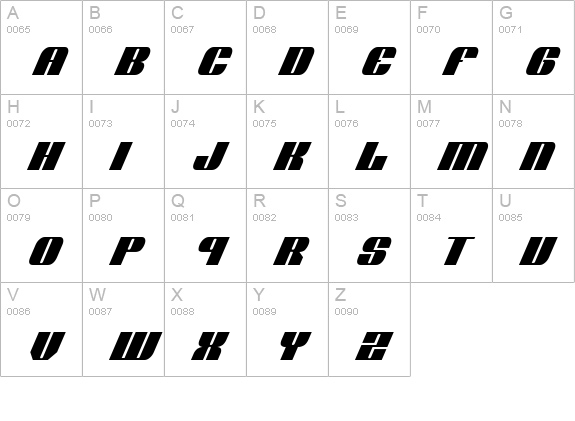
Nolo Contendre CondItal font is a sleek and modern typeface that exudes elegance and sophistication. Its condensed italic design provides a unique and stylish appearance, making it perfect for a variety of design projects. The sharp angles and clean lines of this font give it a contemporary feel that is sure to captivate your audience. One of the best features of Nolo Contendre CondItal font is that it is available for free download at FontsMarket.com. This means you can easily access this high-quality font without any cost, making it a fantastic choice for both personal and commercial use. Whether you're designing a logo, creating a website, or working on a branding project, Nolo Contendre CondItal font is sure to elevate your design with its modern and sophisticated aesthetic. Download this font today and unleash your creativity with this stylish typeface.